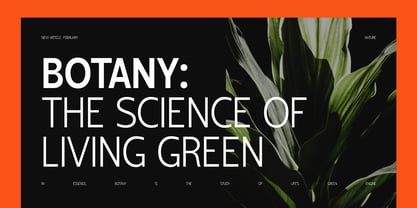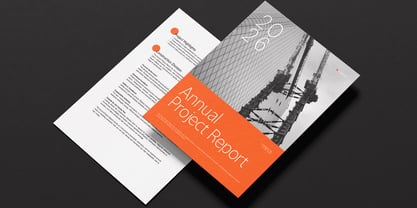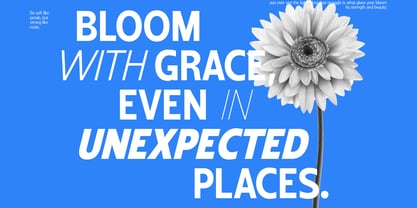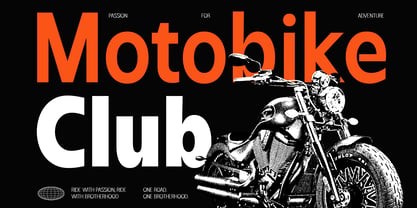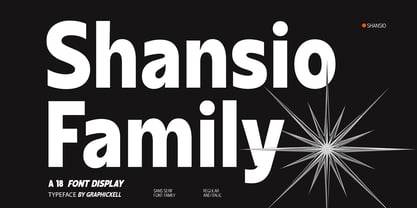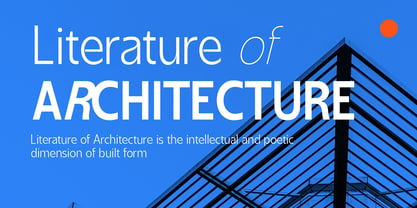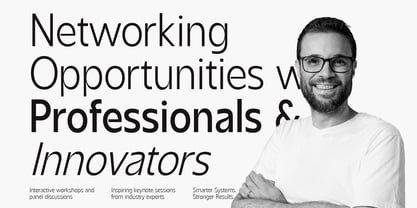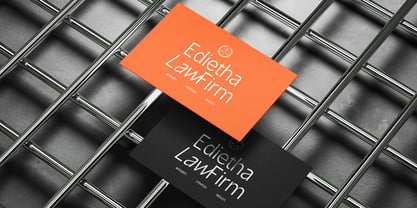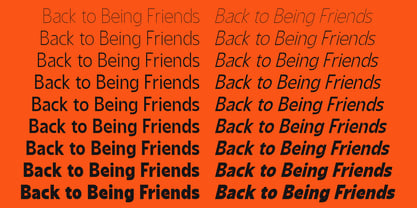
Shansio
by Graphicxell
The Shansio Font Family was designed by Graphicxell and published by Graphicxell. Shansio contains 18 styles and family package options. More about this family
Designers: Graphicxell
Foundry: Graphicxell
Shansio